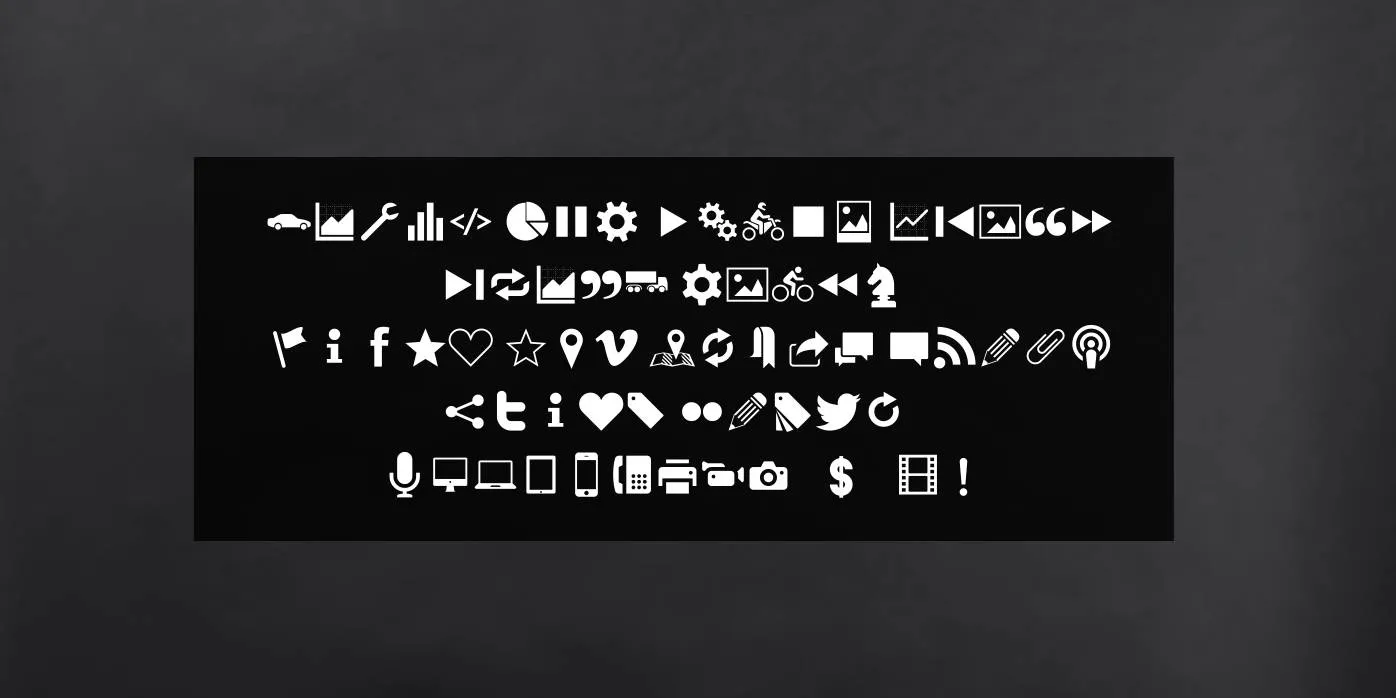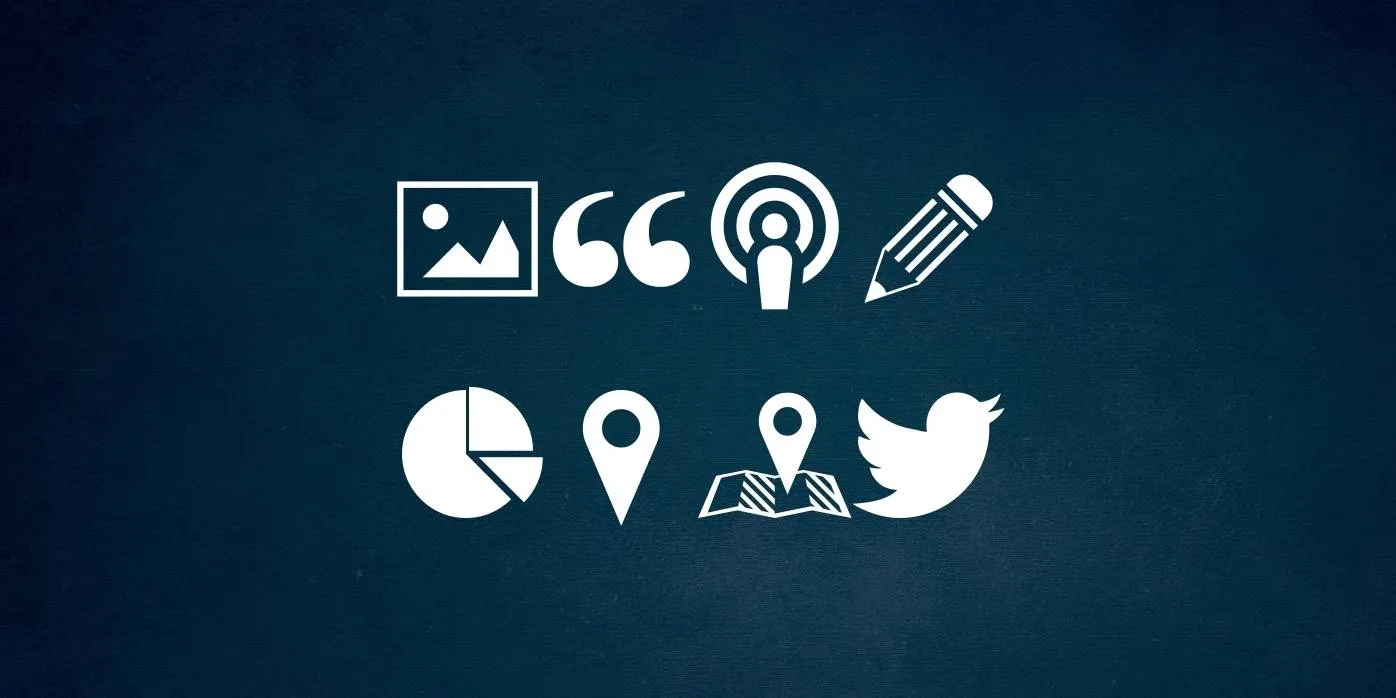
Sosa Font
Today, we are consulting a new typeface that goes by the name Sosa Font. It was designed and published by Ed Merritt. This font family belongs to the Dingbats category. It has neat and clean textures.
It has keen and attractive features. This family comprises a single style that supports only the Latin alphabet. You can also use its alternative haymaker font for advanced uses. Its means that it will be perfect for designing logos, autocade, web banners, and much more.